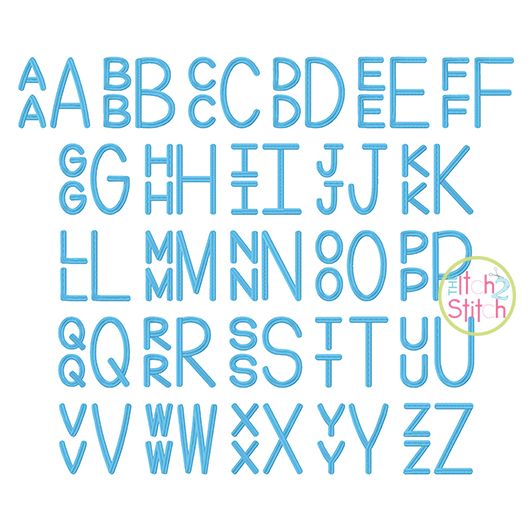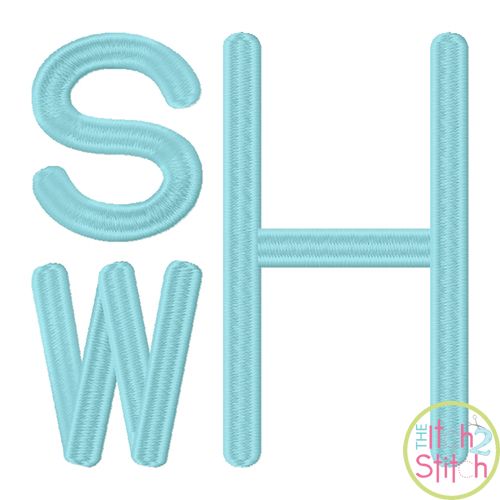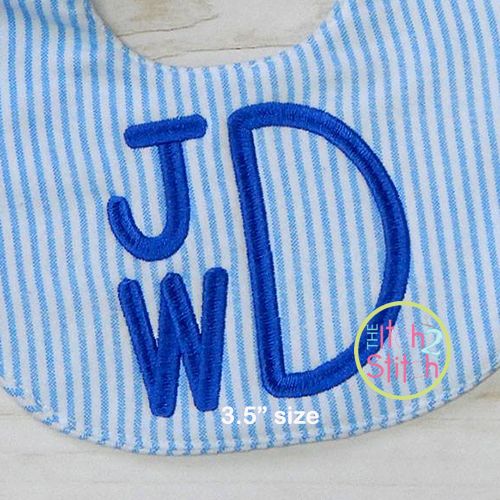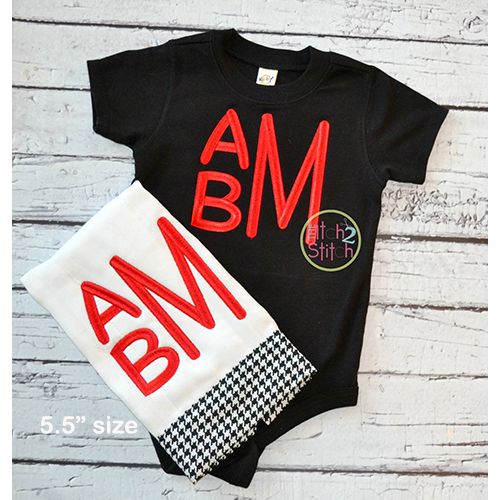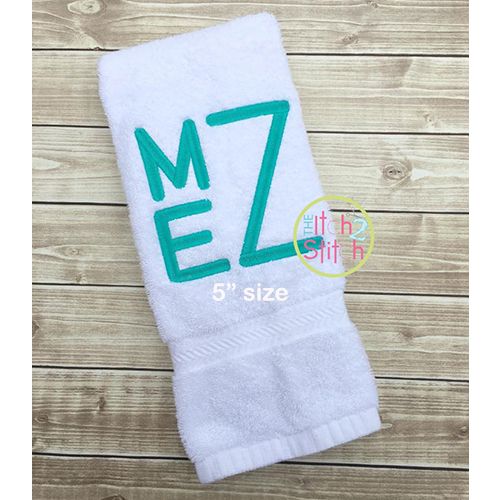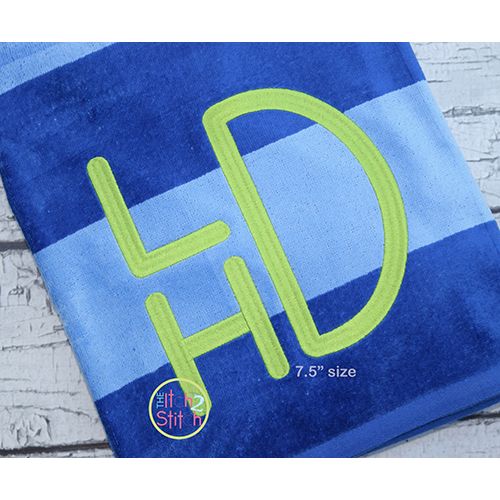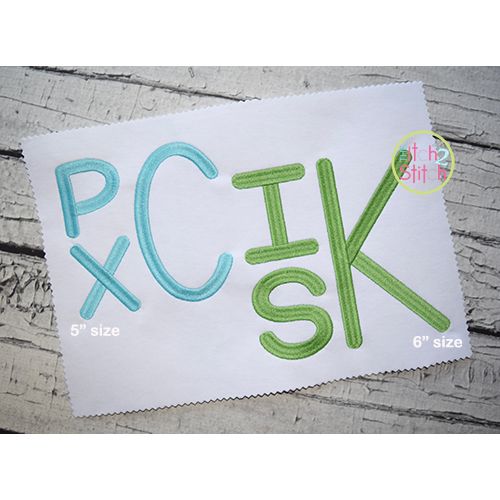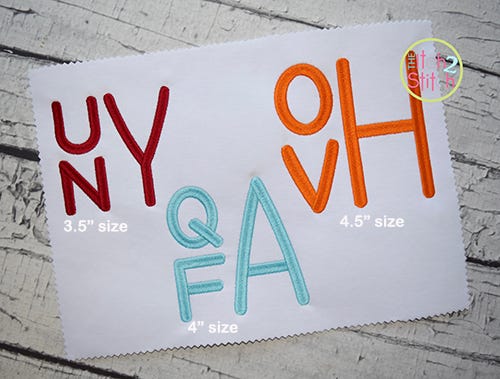
Stacked Sans Large Satin Stitch Monogram Embroidery Font
You will receive all Aa-Zz letters (52 files) in nine sizes. For each size of the monogram there are two styles of letter. Use two "lowercase" letters stacked on the left and a "capital" letter on the right from the same size folder to create the square shaped monogram. These letters feature a split satin stitch.